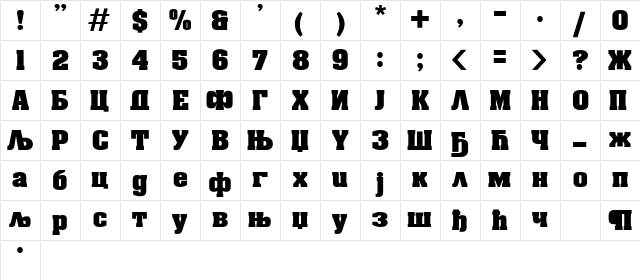
1 Aardvark Regular Free Font
1 Aardvark Regular
Design Context for 1 Aardvark
1 Aardvark is a composed and adaptable typeface that performs quietly and consistently across a wide range of design contexts.